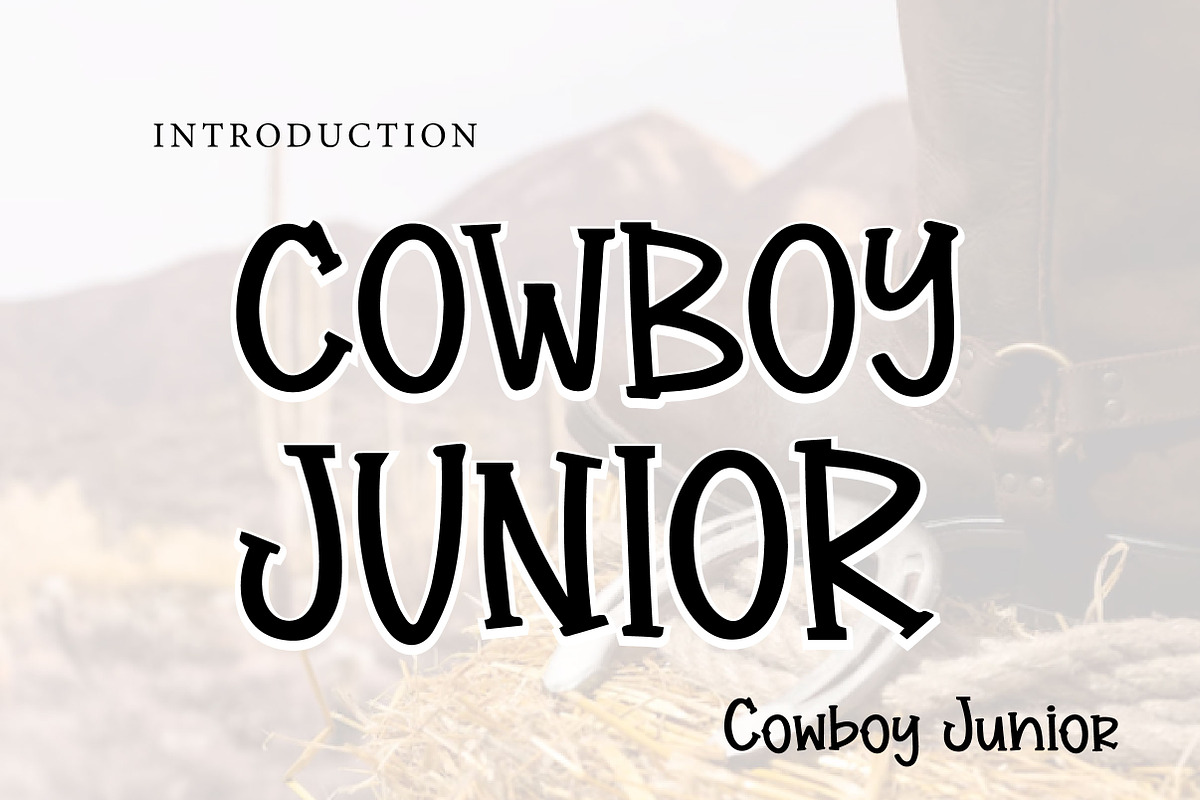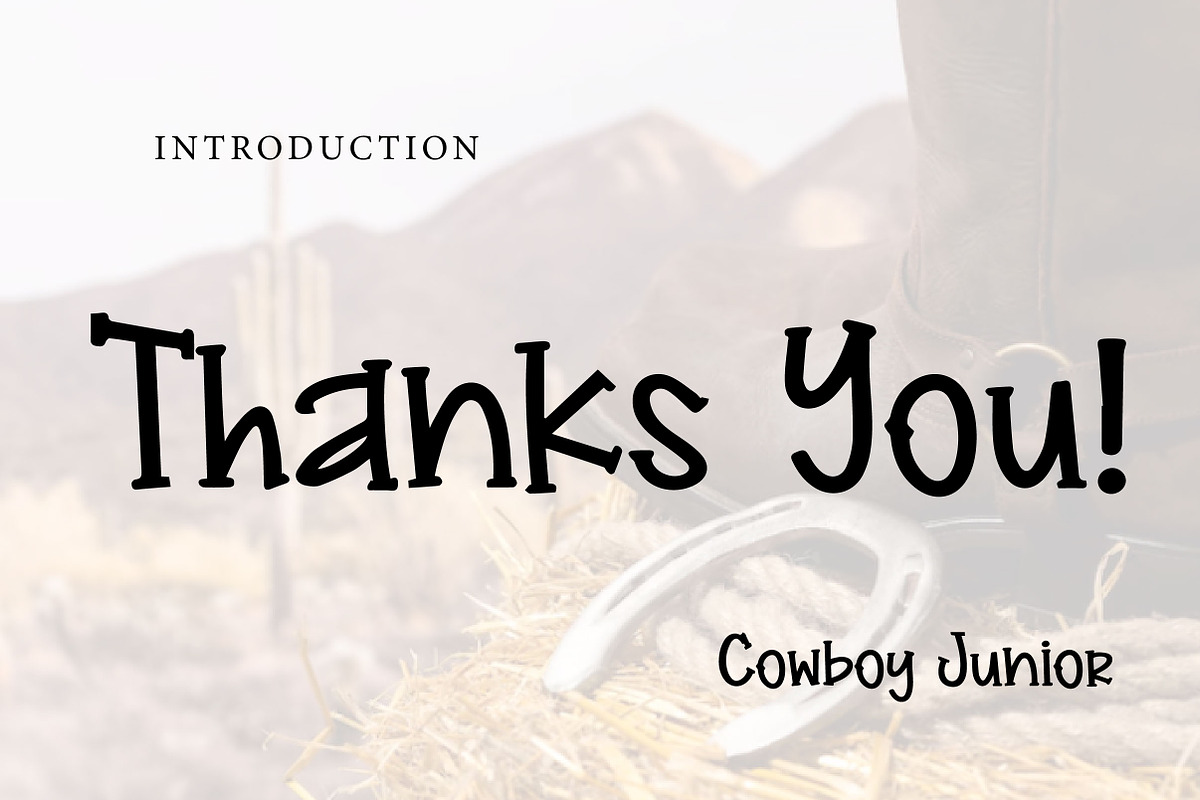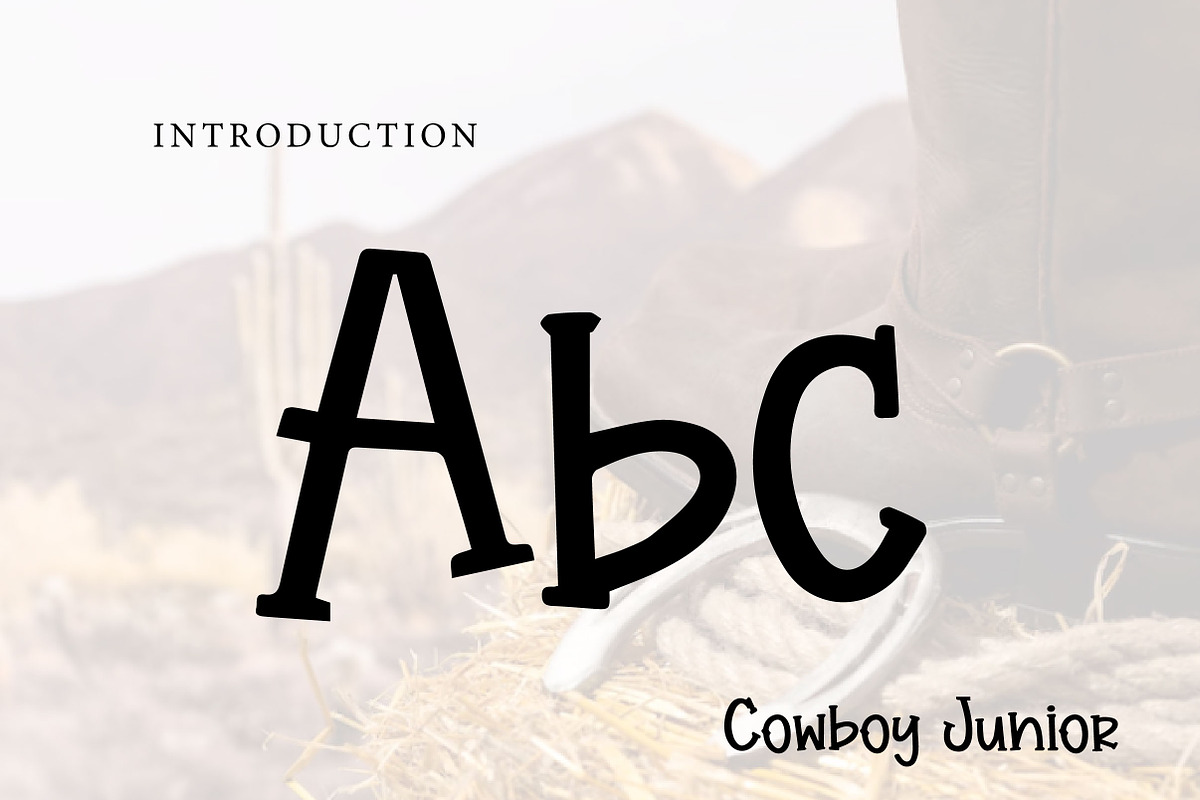
Cowboy Junior
Cowboy Junior – Fun Western Display Font
Cowboy Junior is a fun and playful western display font with a bold, friendly, and adventurous personality. Inspired by classic cowboy style, this font brings a cheerful rustic charm that makes every design feel lively, eye-catching, and full of character.
With its western-inspired letterforms and playful look, Cowboy Junior is perfect for kids’ designs, birthday themes, party decorations, posters, branding, packaging, stickers, t-shirt designs, and creative projects that need a fun cowboy touch. It creates a warm and exciting atmosphere that works beautifully for both themed and casual designs.
This font is a great choice for designers and creators who want a typeface that feels bold, cute, and full of western spirit. Whether you are designing for children, events, or playful branding, Cowboy Junior adds a charming wild west feel to your work.
Western-themed designs Kids’ projects Birthday invitations Party decorations Posters and flyers T-shirt designs Stickers and labels Branding and packaging Fun quote designs
Playful western display style Bold and friendly letterforms Fun cowboy-inspired personality Great for themed and kids’ designs Perfect for print and digital projects
Cowboy Junior is a fun western display font with a playful and adventurous style. Perfect for kids’ projects, birthday invitations, posters, party decorations, branding, and themed designs, it brings a charming cowboy touch to any creative work.